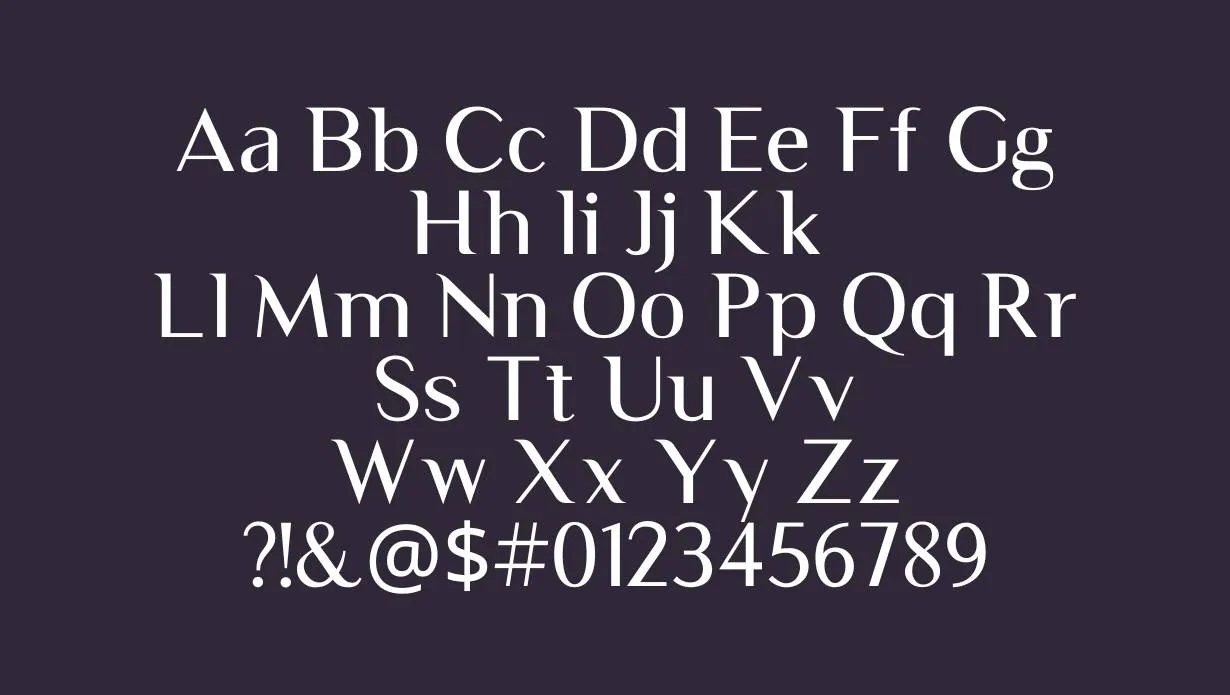
Luxia is an attractive neat and clean Sans-Serif font. The look of this font is very stylish and can be read easily even from a distance. It was designed by Andrew Herdon in 2016. It has nine different styles such as Luxia Regular, Luxia Display, Luxia Oblique, Luxia Medium, Luxia Medium Display, Luxia Medium Oblique, Luxia Bold, Luxia Bold Display, and Luxia Bold Oblique. You can make so many projects by using this font.
| Name | Luxia Font |
| Designer | Andrew Herdon |